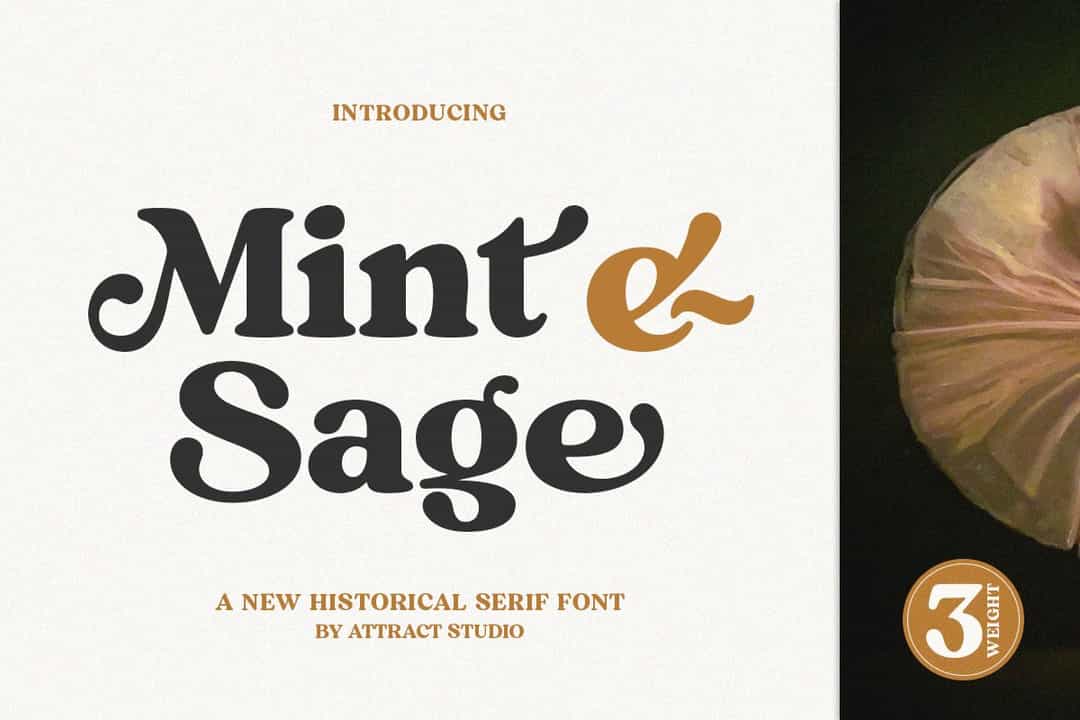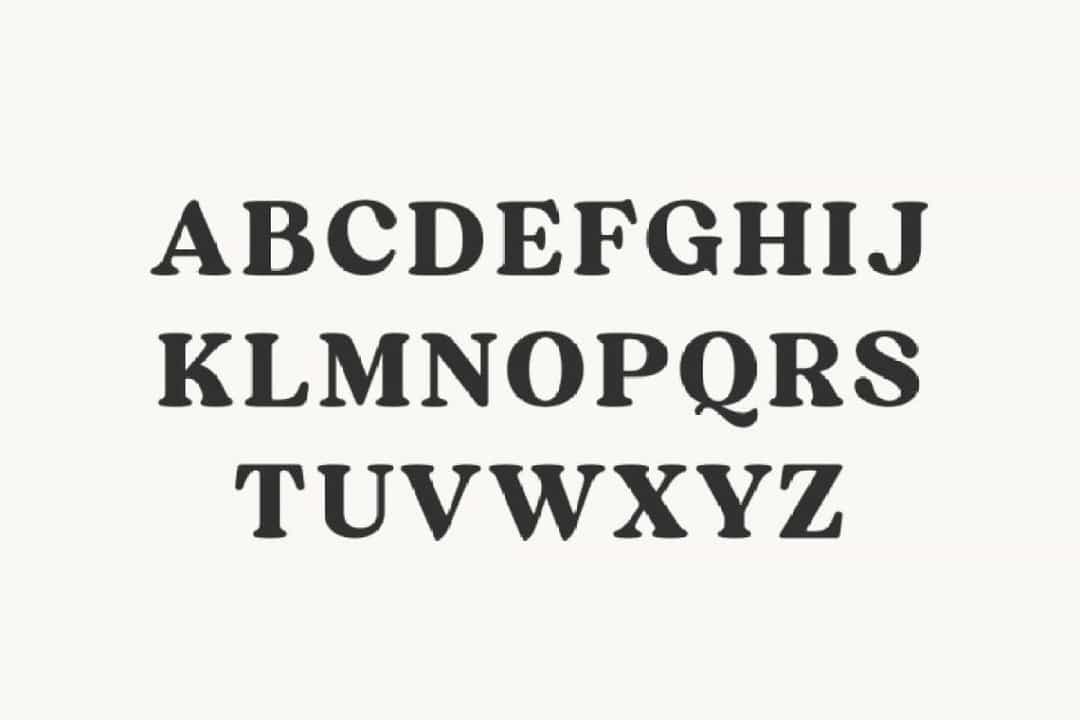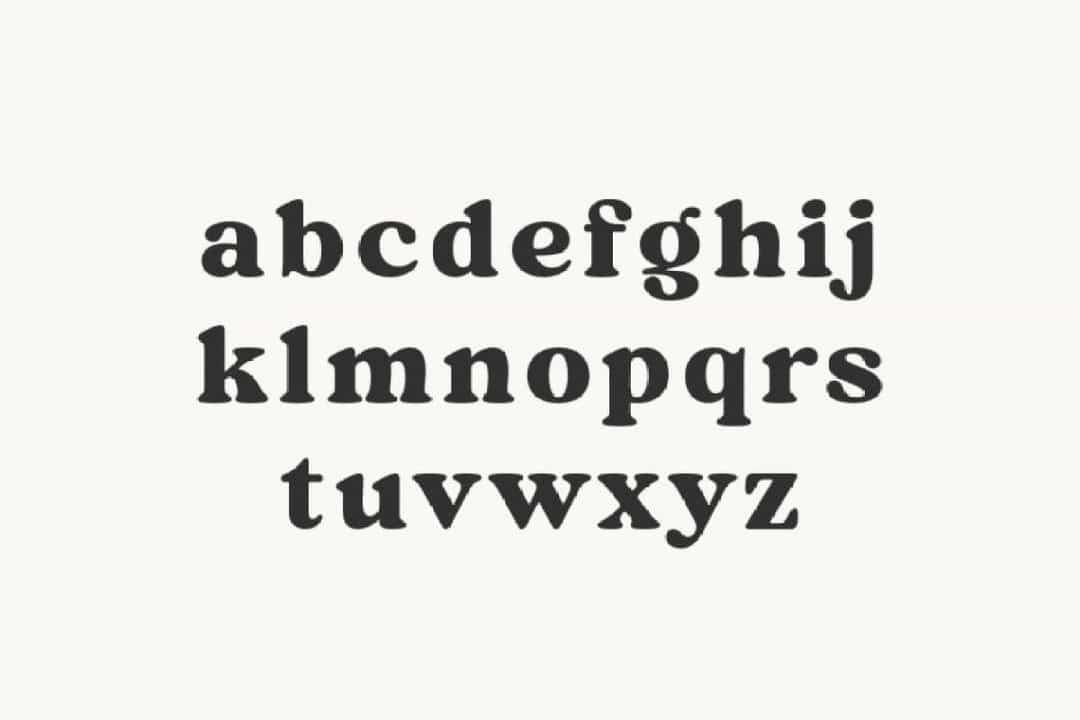
Mint and Sage is an elegant yet bold serif font, ideal for creating wedding invitations, stationary art pieces, captivating Instagram posts and much more! We adore its multipurpose design! Apply it now for stunning invitations or stationary art, Instagram posts or any other purpose you might require!